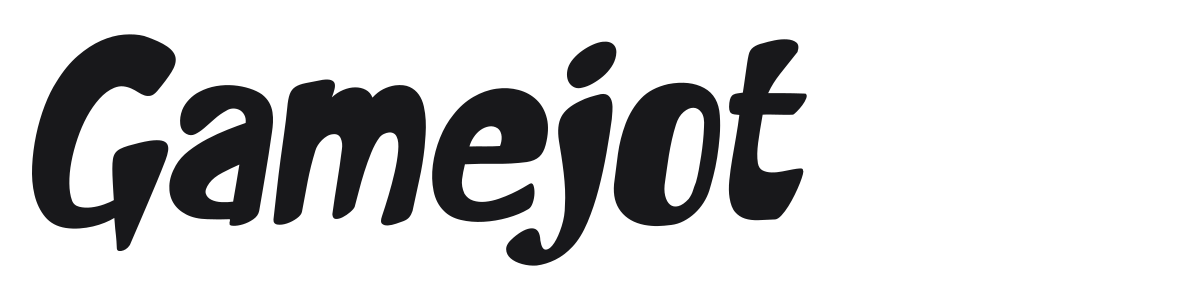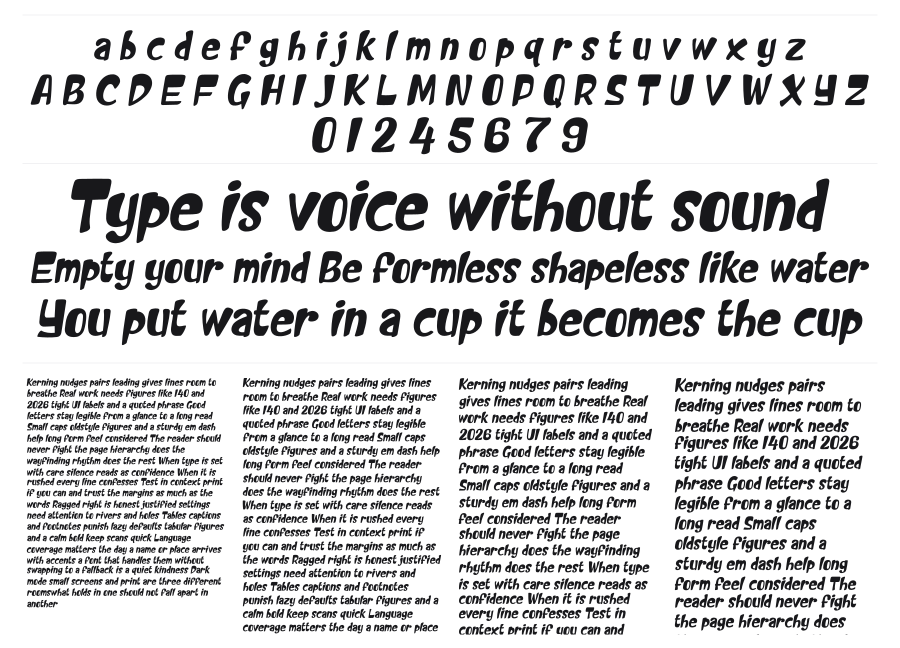
Gamejot
Gamejot is a bold italic rounded sans with chunky strokes and a loose, cartoon-influenced construction. The heavy weight and forward lean push energy into headlines and game titles without taking things too seriously. A natural fit for children's books, mobile game UI, and anything that needs to feel approachable and fun.